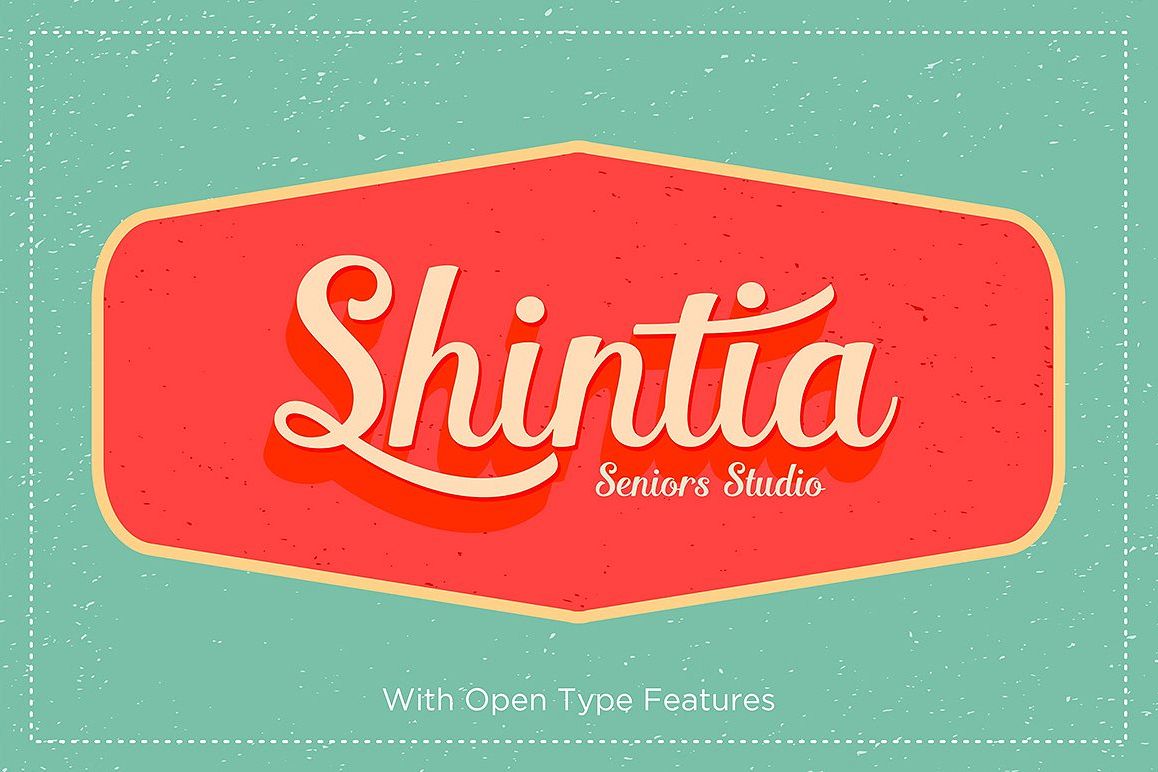
Shintia Script is highly legible Script typeface, get touch of a bold, classic and fun Vintage Script font, With almost 247 glyphs and opentype features with stylistic alternates. Can be used for various purposes. such as posters, t-shirt, signage, logos, news, badges etc. Shintia Script is coded with PUA Unicode, which allows full access to all the extra characters without having special designing software. Mac users can use Font Book , and Windows users can use Character Map to view and copy any of the extra characters to paste into your favourite text editor/app. How to access all alternative characters, using Windows Character Map with Photoshop:https://www.youtube.com/watch?v=Go9vacoYmBw